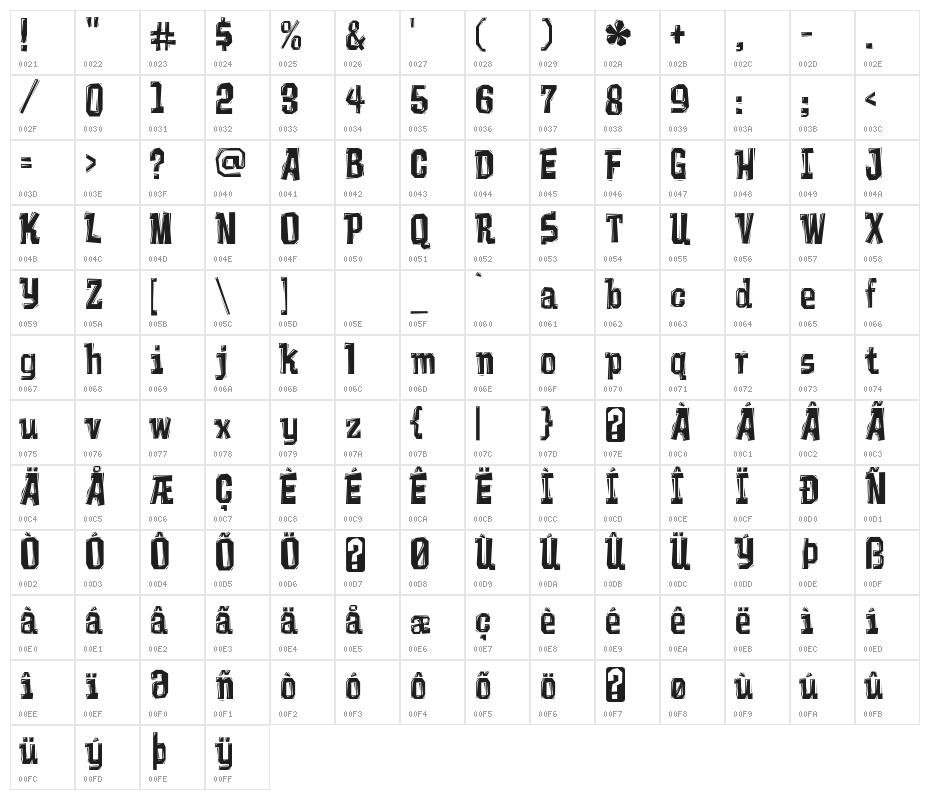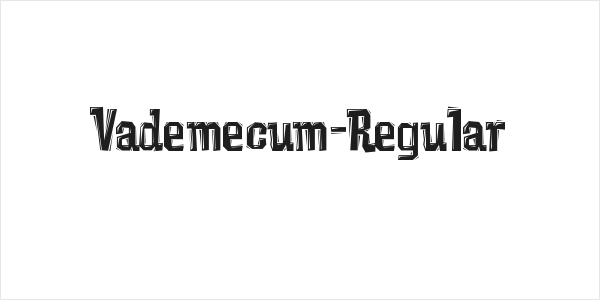
Vademecum-Regular Font
Vademecum-Regular Description
This font features a bold, angular design with a distinct three-dimensional effect. The characters have a dynamic, edgy appearance, with sharp corners and a shadow-like outline that gives them depth. The uppercase and lowercase letters maintain a consistent style, while the numbers and special characters follow the same bold and striking aesthetic. This font is highly decorative, making it suitable for eye-catching designs.
| Proposed Projects | Ideal for poster designs, album covers, video game graphics, and any project requiring a bold, attention-grabbing typeface. |